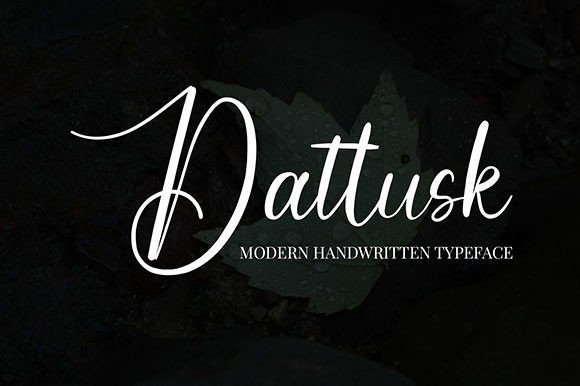
Journey into the world of captivating calligraphy with Dattusk, a stunning script font family masterfully crafted by the renowned Chatype Studio. Each stroke of this font exudes elegance and authenticity, making it the perfect choice for designers and creatives seeking to make a lasting impression.
Unleash your creativity with Dattusk script, meticulously designed to bring a touch of sophistication and charm to your projects. Whether you're crafting heartfelt quotes, designing timeless logos, creating eye-catching blog headers, or any other endeavor, this font family will elevate your vision with its timeless beauty.
Imagine your words dancing across the screen or adorning your printed designs, infused with the graceful allure of Dattusk. Let your creativity flow freely as you explore the endless possibilities of this versatile font family, suitable for a wide range of projects including posters, ribbons, fashion, clothing, letters, invitations, and stationery.
Step into a world of captivating typography with Dattusk, where your designs will captivate and inspire. Let this elegant script font be your muse, guiding you towards creating masterpieces that leave an unforgettable mark on your audience. Experience the transformative power of Dattusk and unlock the true potential of your creative genius.